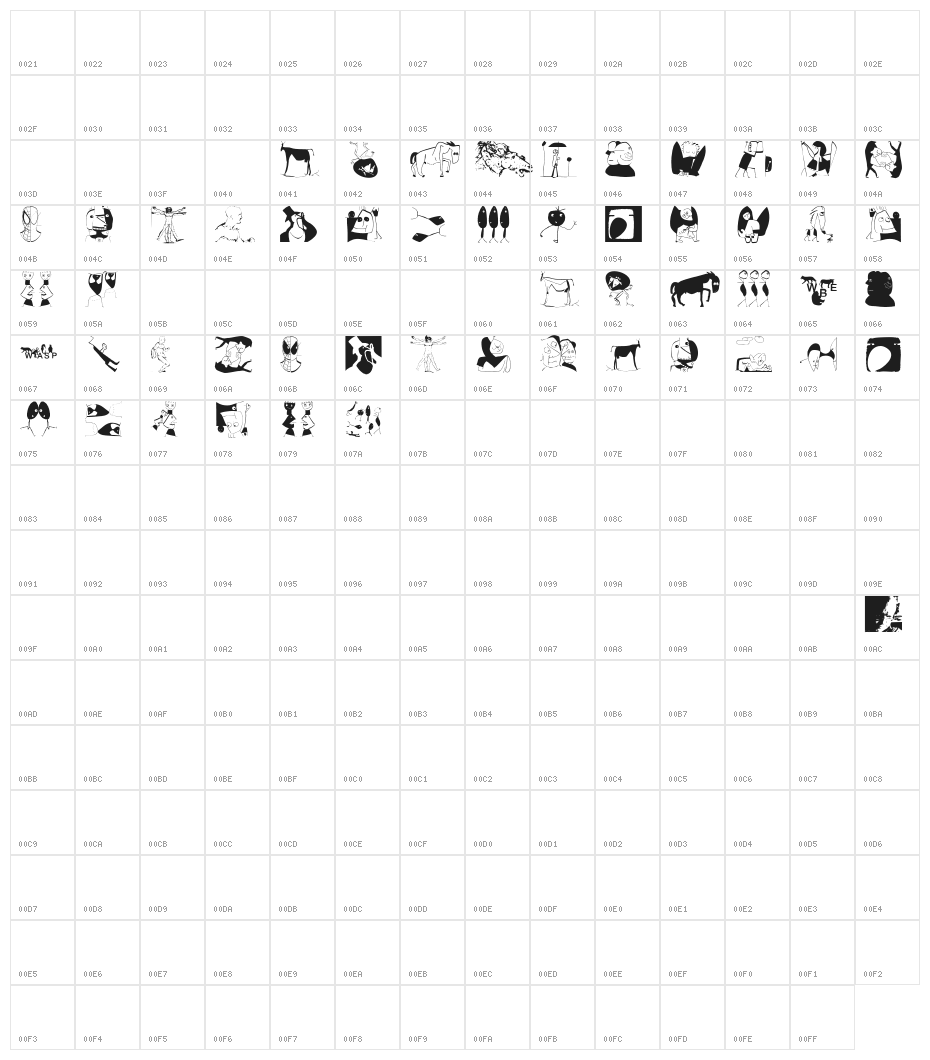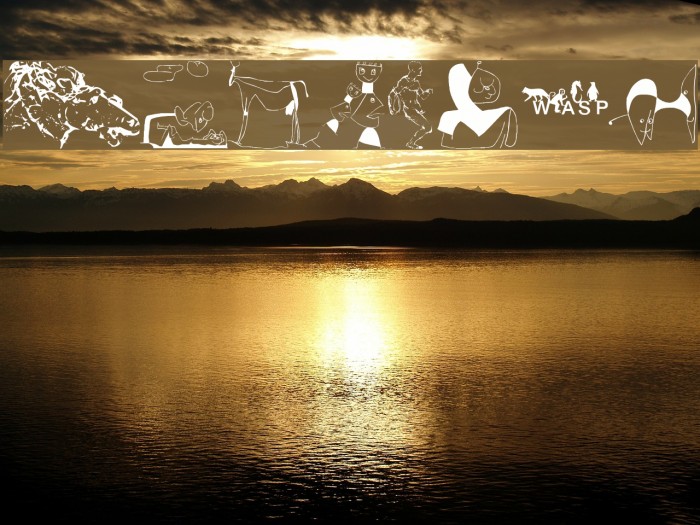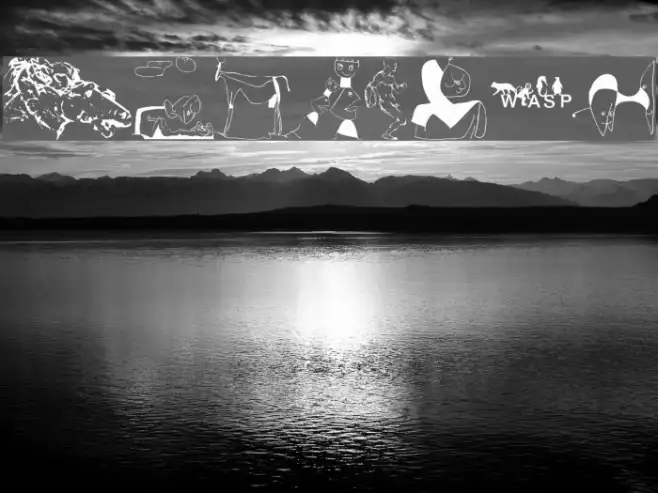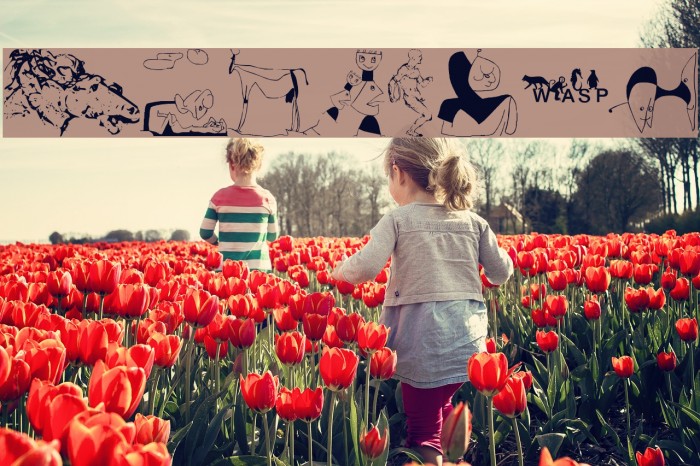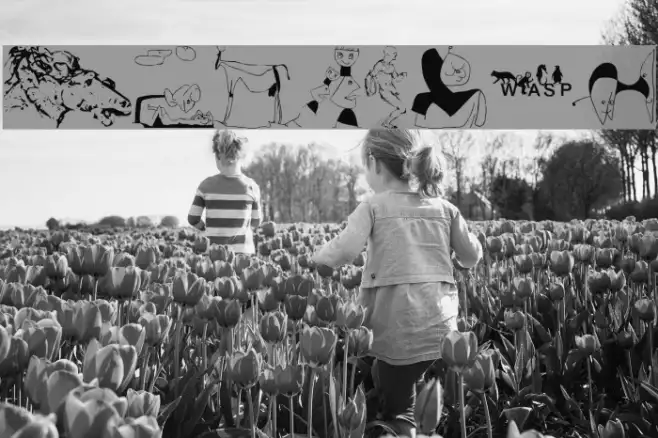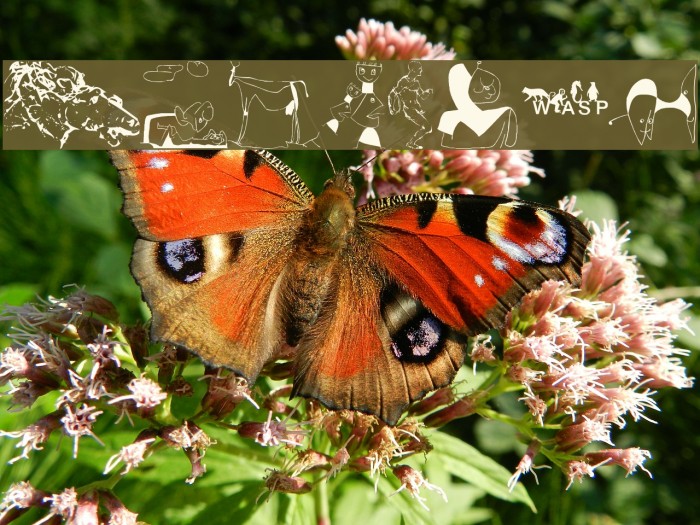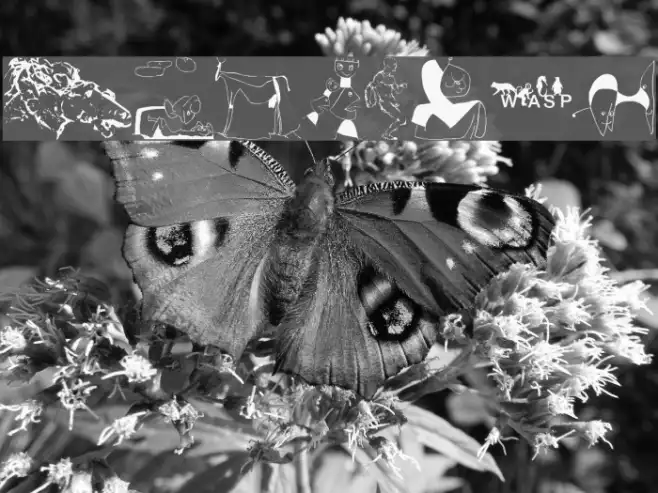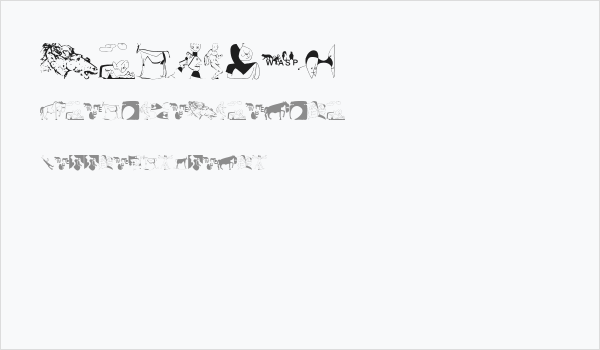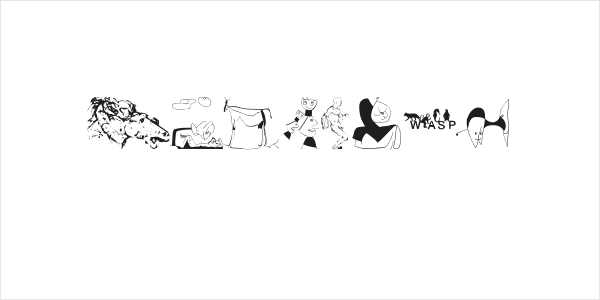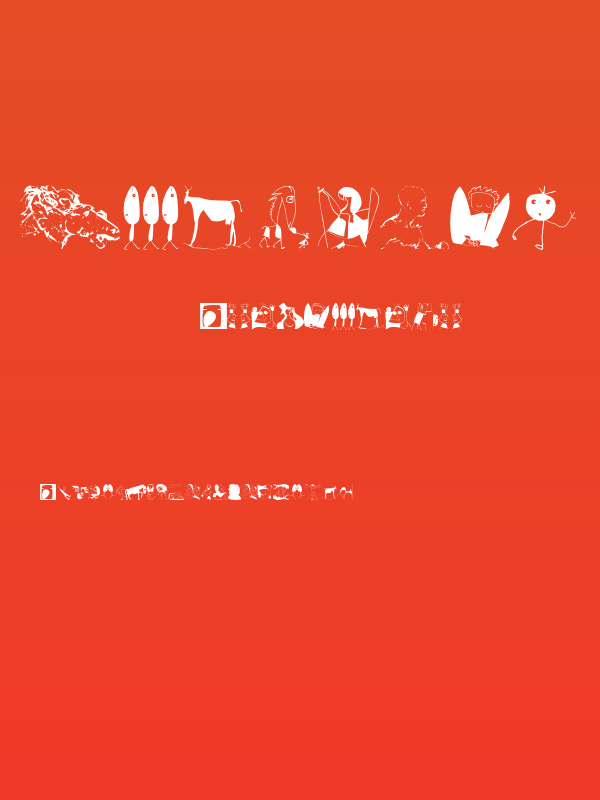
Drawings Font
Drawings Description
A highly decorative and whimsical font composed of hand-drawn illustrations and abstract figures representing each character. The glyphs are playful, irregular, and filled with unique, artistic doodles, making letterforms sometimes challenging to distinguish. The style is reminiscent of sketchbook art, with varying line weights and a mix of solid fills and outlines.
| Overall Style | Decorative, Whimsical, Artistic |
| Use Case | Logos, Posters, Headlines, Art projects |
| Proposed Projects | ChildrenΓ’β¬β’s books, creative posters, art projects, invitations, branding for playful or artistic products. |